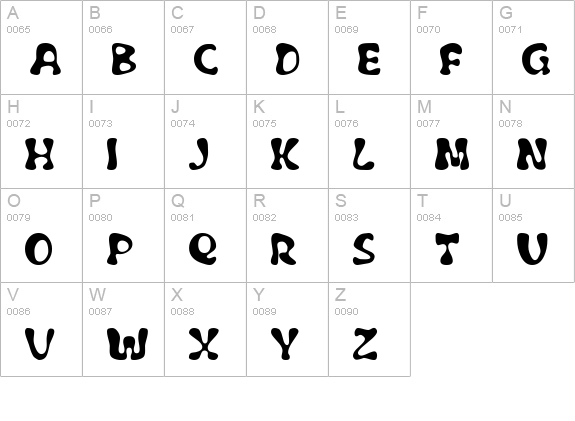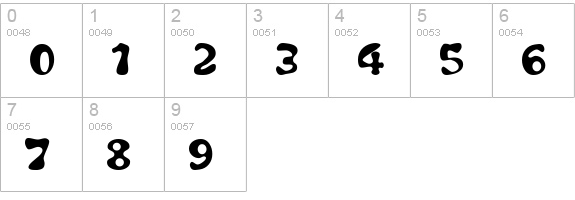
Flubber Font Details
Introducing Flubber font - a playful and whimsical typeface that exudes creativity and fun! With its bold and rounded letterforms, Flubber font is perfect for adding a touch of charm to your designs. Whether you're working on a poster, logo, or greeting card, Flubber font will bring a unique and delightful touch to your projects. The best part? Flubber font is completely free to download at FontsMarket.com! So go ahead and grab this versatile and eye-catching typeface to elevate your designs to the next level. Let your creativity soar with Flubber font and make your projects stand out from the rest.